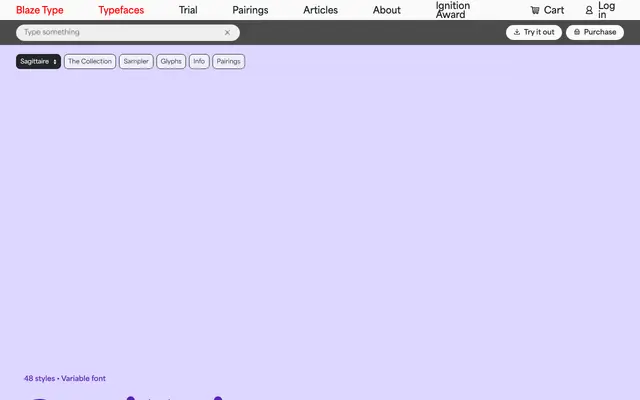
Sagittaire
A three-family serif collection from Blaze Type spanning Display, Normal and Text optical sizes across eight weights with matching italics and variable font support.
Spanning 48 styles across Display, Normal and Text subfamilies, the collection is built to function across a broad range of sizes and contexts, from large-scale headlines down to running copy. Each family shares eight weights from Hairline to Bold with corresponding italics, and the full collection is available as variable fonts. The optical differentiation between families suggests a design that takes contrast and spacing seriously at each intended size.
The presence of three optical families (Display, Normal, Text) with refined contrast across weights points to a transitional serif design built for range across sizes. The hairline-to-bold weight span and optical size structure are characteristic of a high-contrast transitional approach.